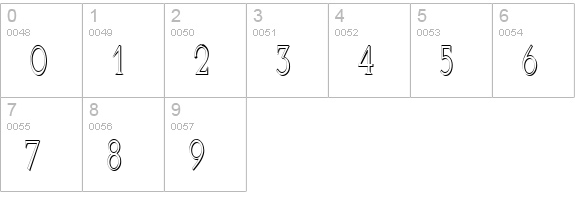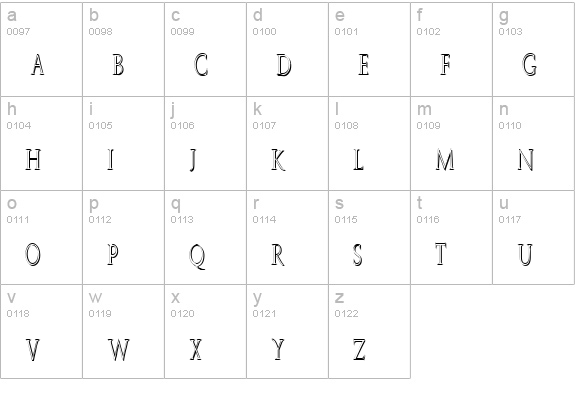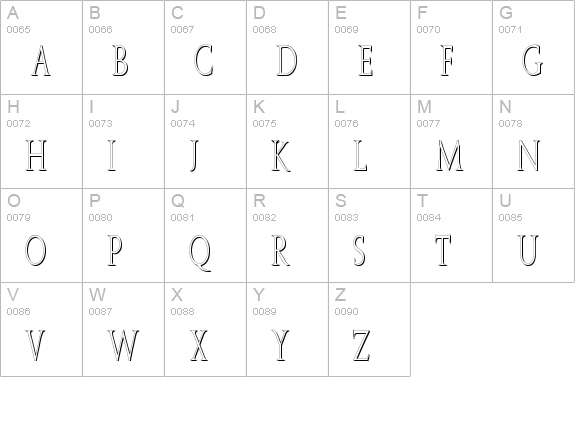
JW Brass Font Details
Introducing JW Brass, a stunning and versatile font that will add a touch of elegance to any project. With its bold yet refined design, JW Brass captures attention and makes a statement. Perfect for headlines, logos, branding, and more, this font is sure to leave a lasting impression. JW Brass boasts a unique combination of classic and modern elements, creating a truly timeless aesthetic. Its clean lines and intricate details make it both sophisticated and eye-catching, setting it apart from other fonts in its category. Whether you're designing a wedding invitation, a magazine layout, or a website, JW Brass will elevate your design to new heights. But what truly sets JW Brass apart is its availability to download for free at FontsMarket.com. That's right, this exceptional font is freely accessible to all! FontsMarket.com is a trusted source for high-quality fonts, and JW Brass is no exception. With just a few clicks, you can bring this remarkable font into your creative arsenal, without breaking the bank. So why wait? Download JW Brass today and let your creativity shine. With its timeless design and free accessibility, this font is an absolute must-have for designers, artists, and anyone looking to make a lasting impression. Don't miss out on the opportunity to add JW Brass to your collection; head over to FontsMarket.com now and experience the beauty and versatility of this remarkable font.